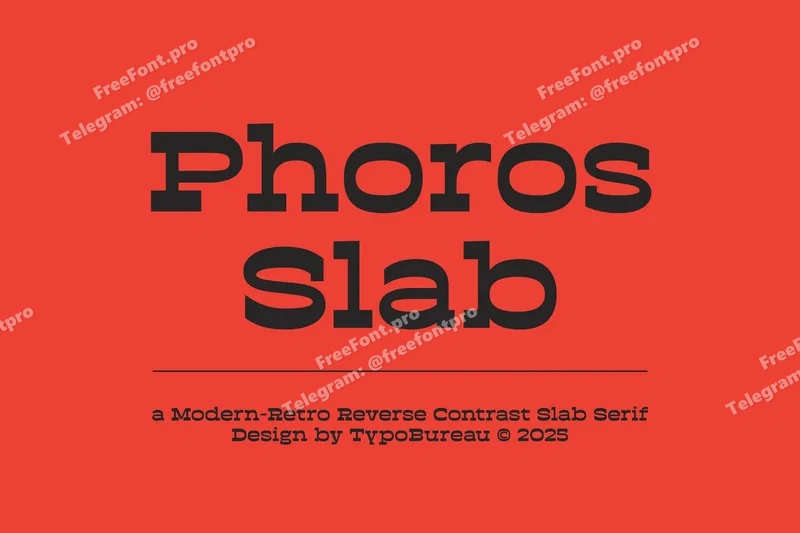
Photos Slab
TBS Phoros Slab is a slab serif base on experimental display typeface with a bit western feel, Reverse Contrast stroke and Expanded Width makes this font looks Retro yet Modern but edgy. Use PHOROS SLAB as a display font so you can use this font to elevate your project to the next level. suit for headline, Large Size, Titles and more. hope you are enjoy with this fun font. cheers!